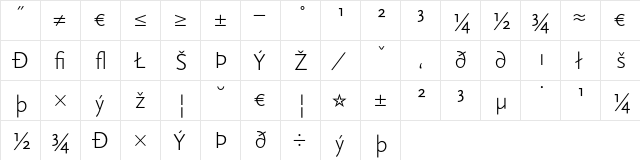
ScalaSans Exp Light Regular
Design Context for ScalaSans Exp Light Typeface
ScalaSans Exp Light offers clean, dependable letterforms without strong stylistic allegiance, making it a practical choice for designers who need flexibility. The delicate stroke weight brings airiness and refinement to layouts.